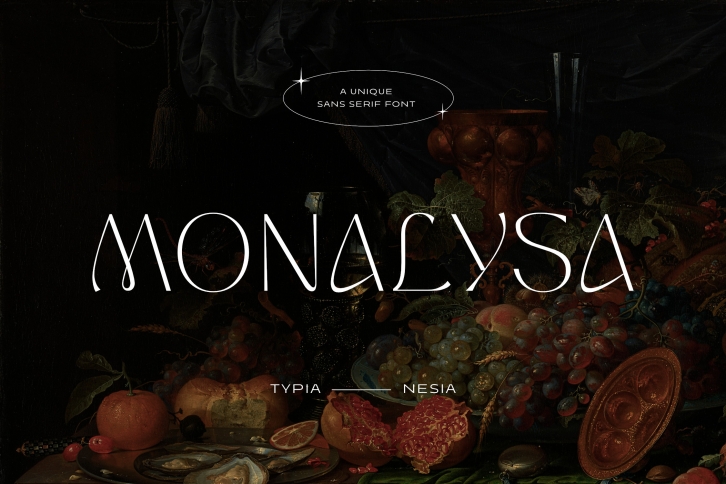
Monalysa is a unique and modern sans serif font. It maintains its classy calligraphic influences while feeling contemporary and fresh. Fall in love with it and bring your projects to the highest levels!